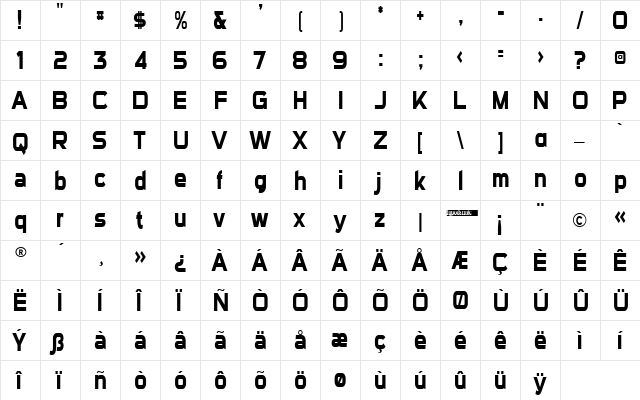
Sui Generis Condensed Regular
Design Context for Sui Generis Condensed Typeface
Sui Generis Condensed takes a measured approach to typography — its balanced proportions and neutral character make it a reliable workhorse for both digital and print work. Its narrow stance lets it pack a punch even in space-constrained designs.